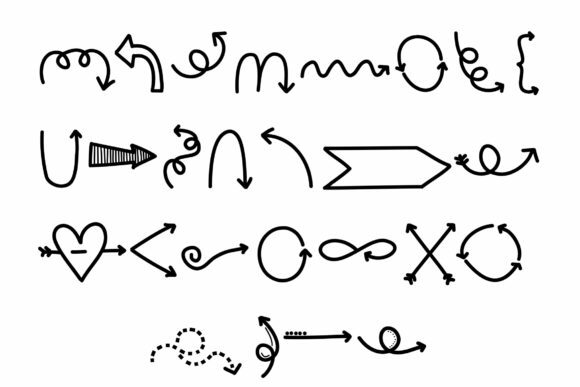
About Shiplap Walls Font
Shiplap Walls is indeed a cute and casual dingbat font that can add a friendly and inviting feel to your designs. Whether you’re using it for social media graphics, DIY projects, or any creative idea, Shiplap Walls will elevate your designs and make them stand out. Here are some ways you can use the Shiplap Walls font to enhance your creations:
1. Social Media Posts: Create eye-catching and engaging social media posts using the Shiplap Walls font. Use the dingbats as decorative elements, borders, or icons to add a charming and unique touch to your graphics.
2. DIY Projects: Incorporate the Shiplap Walls font into your DIY projects. Whether you’re creating handmade cards, home decor, or personalized gifts, the casual and friendly style of the font will add a warm and inviting feel to your creations.
3. Branding and Logo Design: If you’re looking for a font that embodies a casual and approachable brand identity, the Shiplap Walls font is a great choice. Use the dingbats as part of your logo or branding elements to create a distinct and memorable visual identity.
4. Scrapbooking and Journaling: Add a whimsical touch to your scrapbook pages or journals with the Shiplap Walls font. Use the dingbats to decorate and accentuate your layouts, making your memories even more special and visually appealing.
5. Handmade Cards and Invitations: Design unique and personalized cards and invitations using the Shiplap Walls font. The casual and friendly feel of the font will add a warm and welcoming touch to your messages, making them even more heartfelt and memorable.
6. Typography Art: Use the Shiplap Walls font to create typography art pieces. Combine the dingbats with hand-lettered phrases or quotes to create visually stunning and inspiring artworks.
Remember to play around with different color combinations, layouts, and sizes to make the most of the Shiplap Walls font. Let its casual and friendly vibe bring a touch of warmth and creativity to your projects, turning them into true works of art!